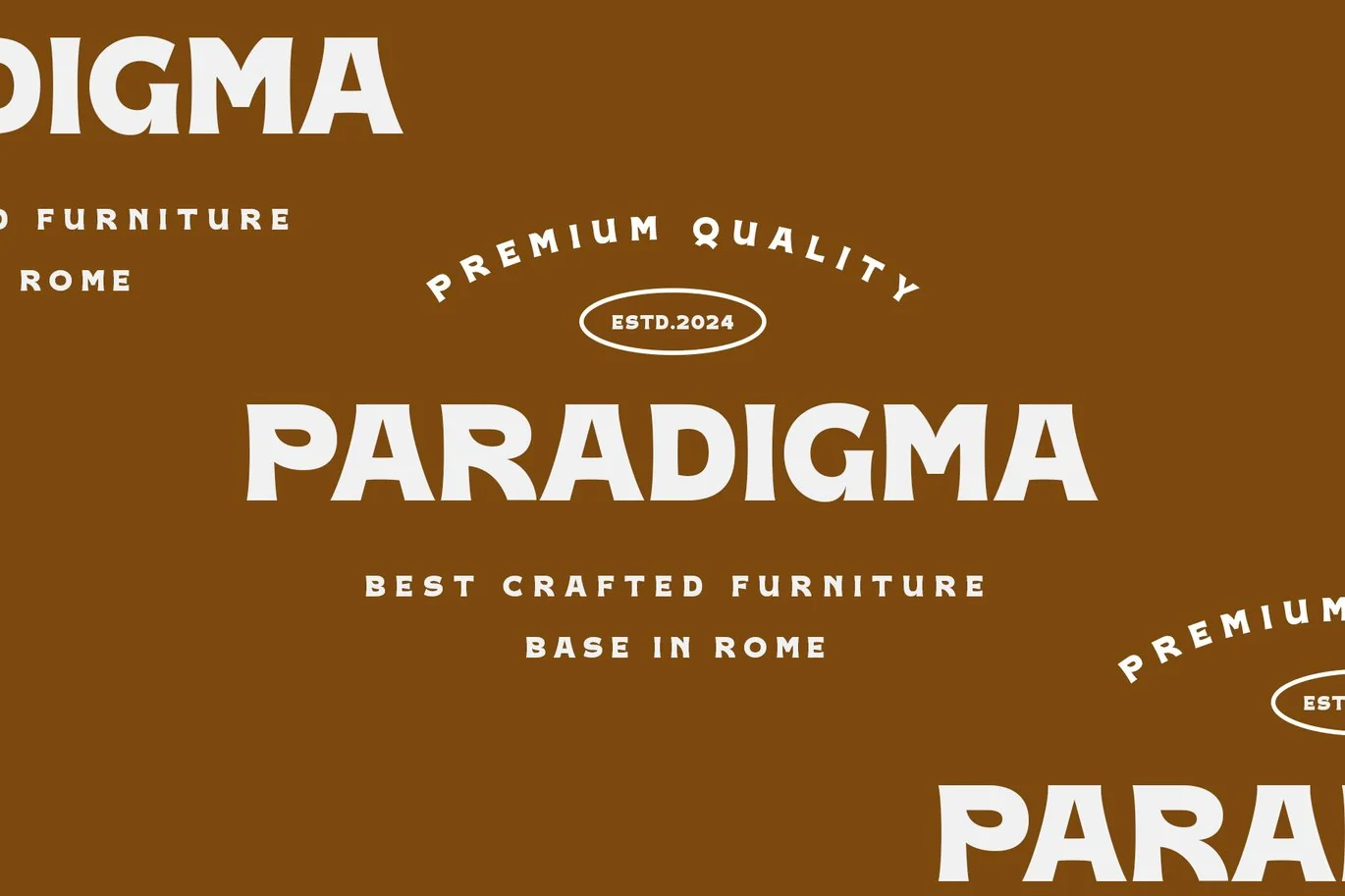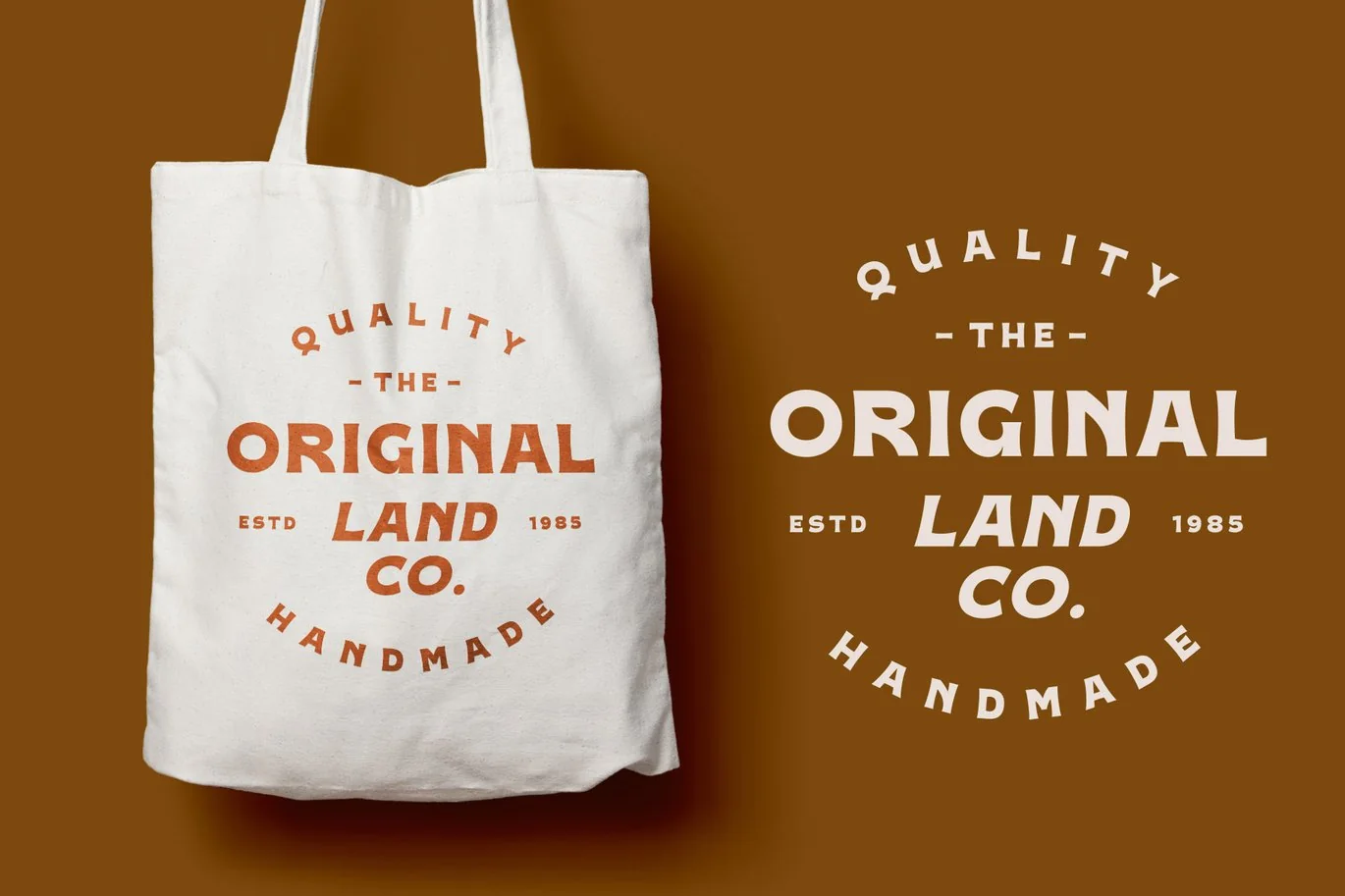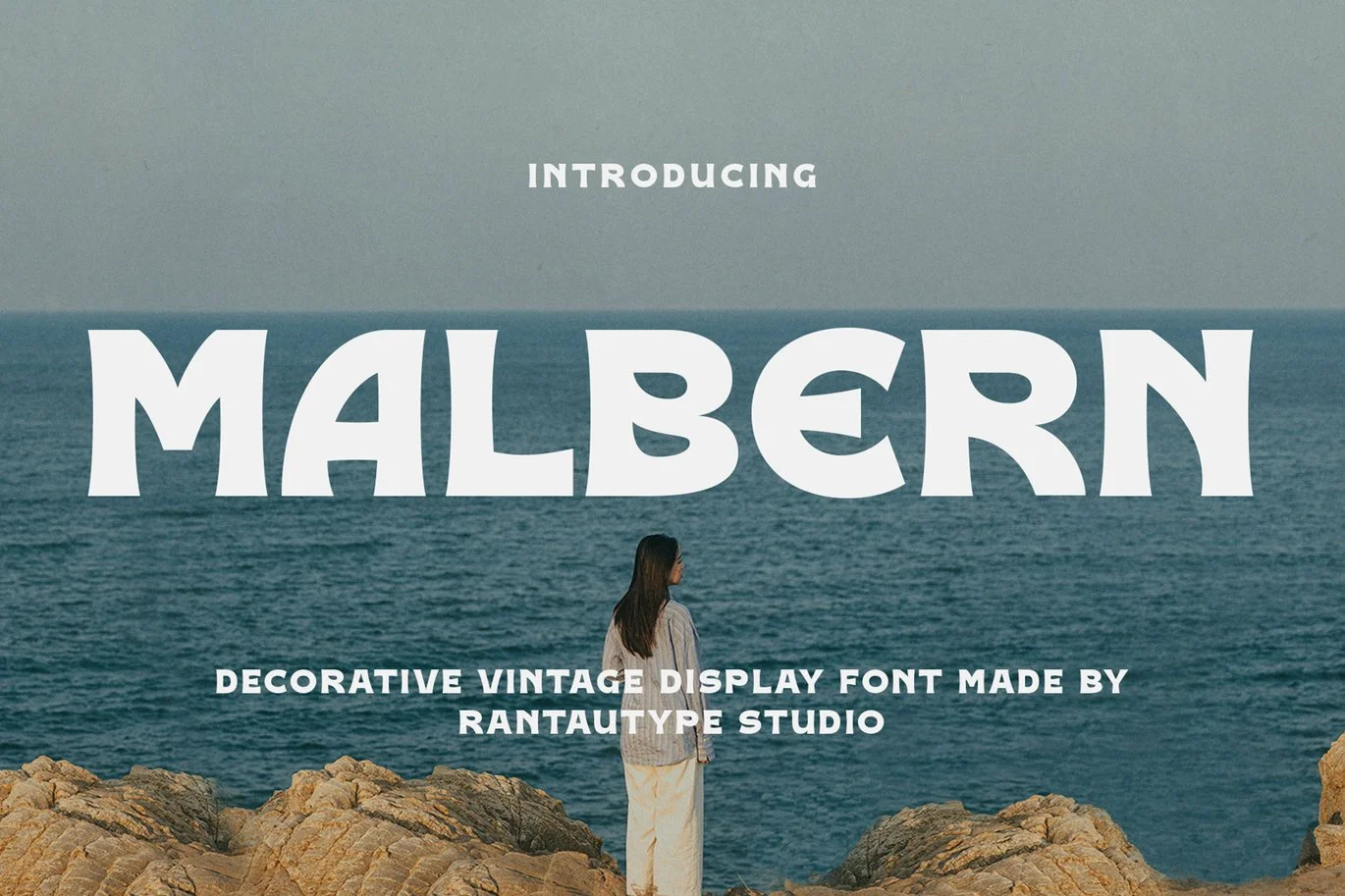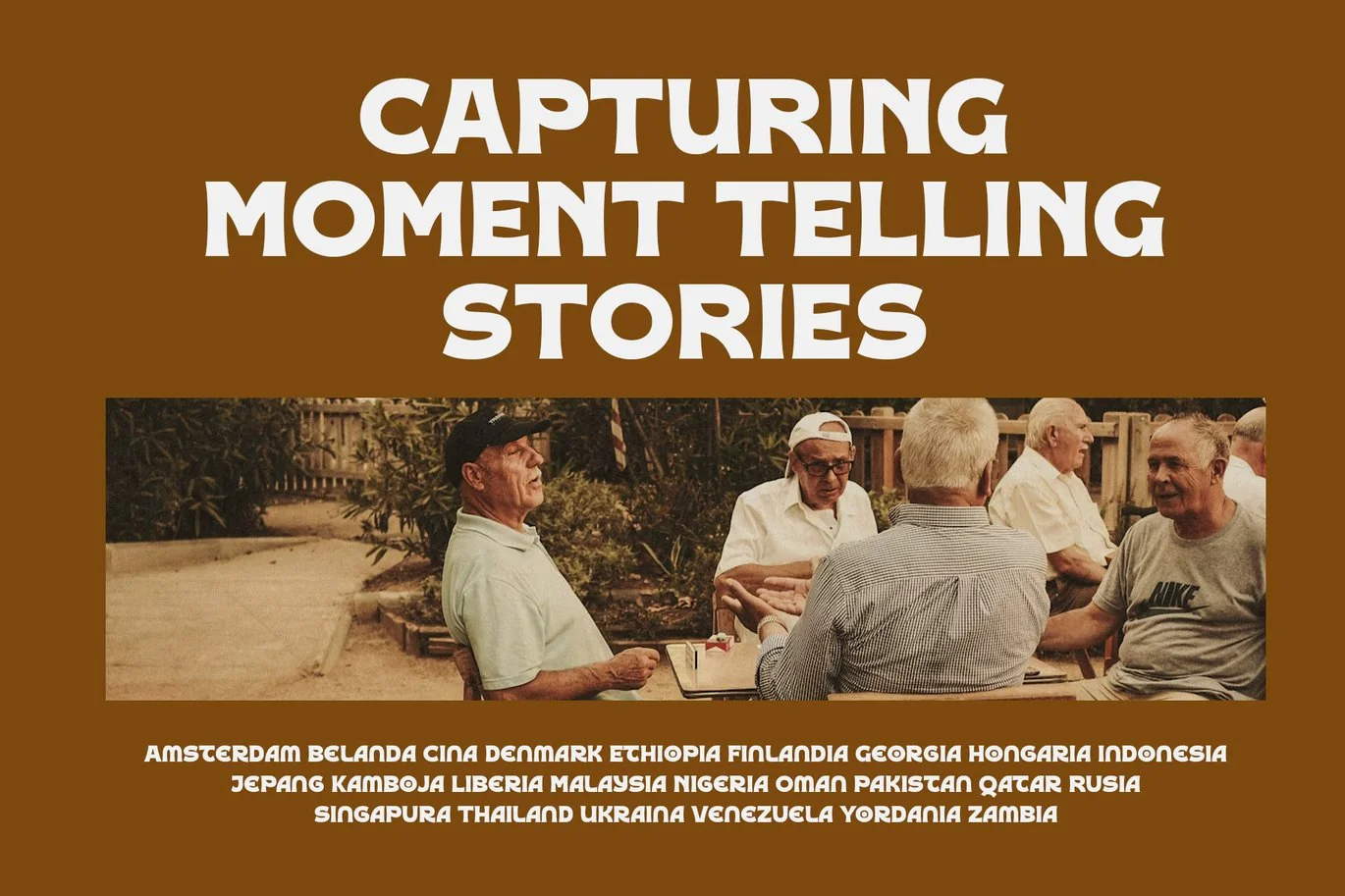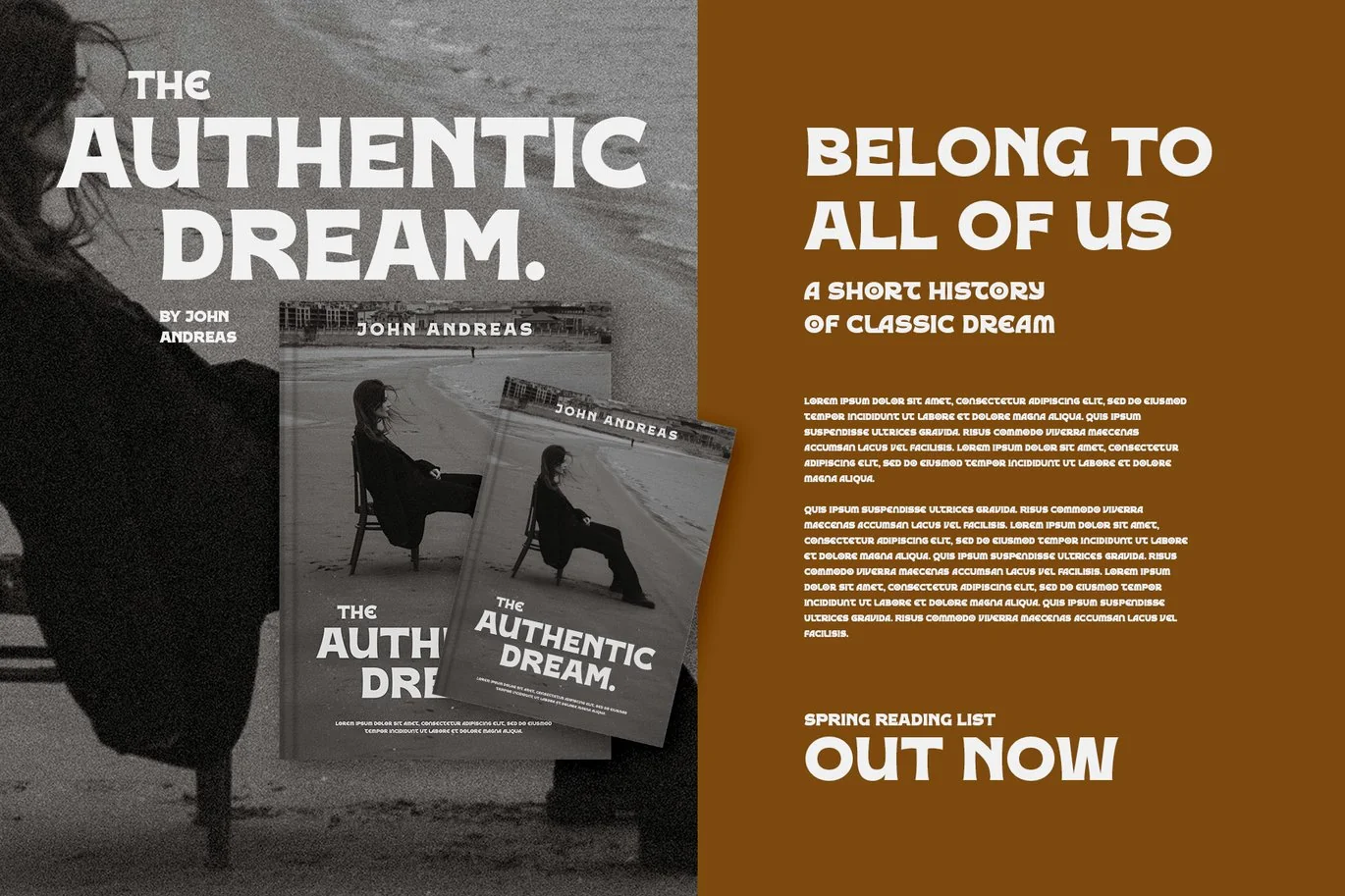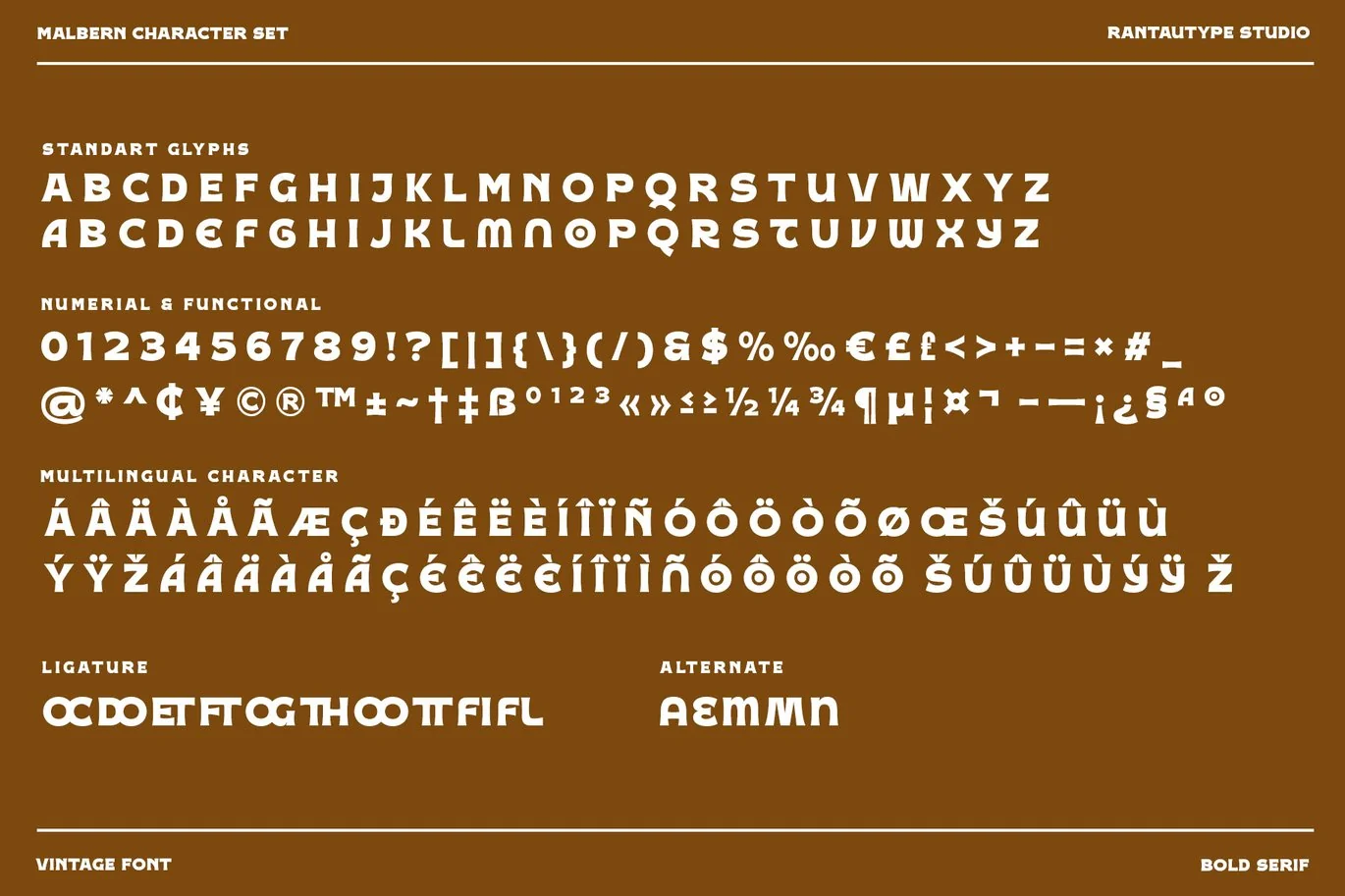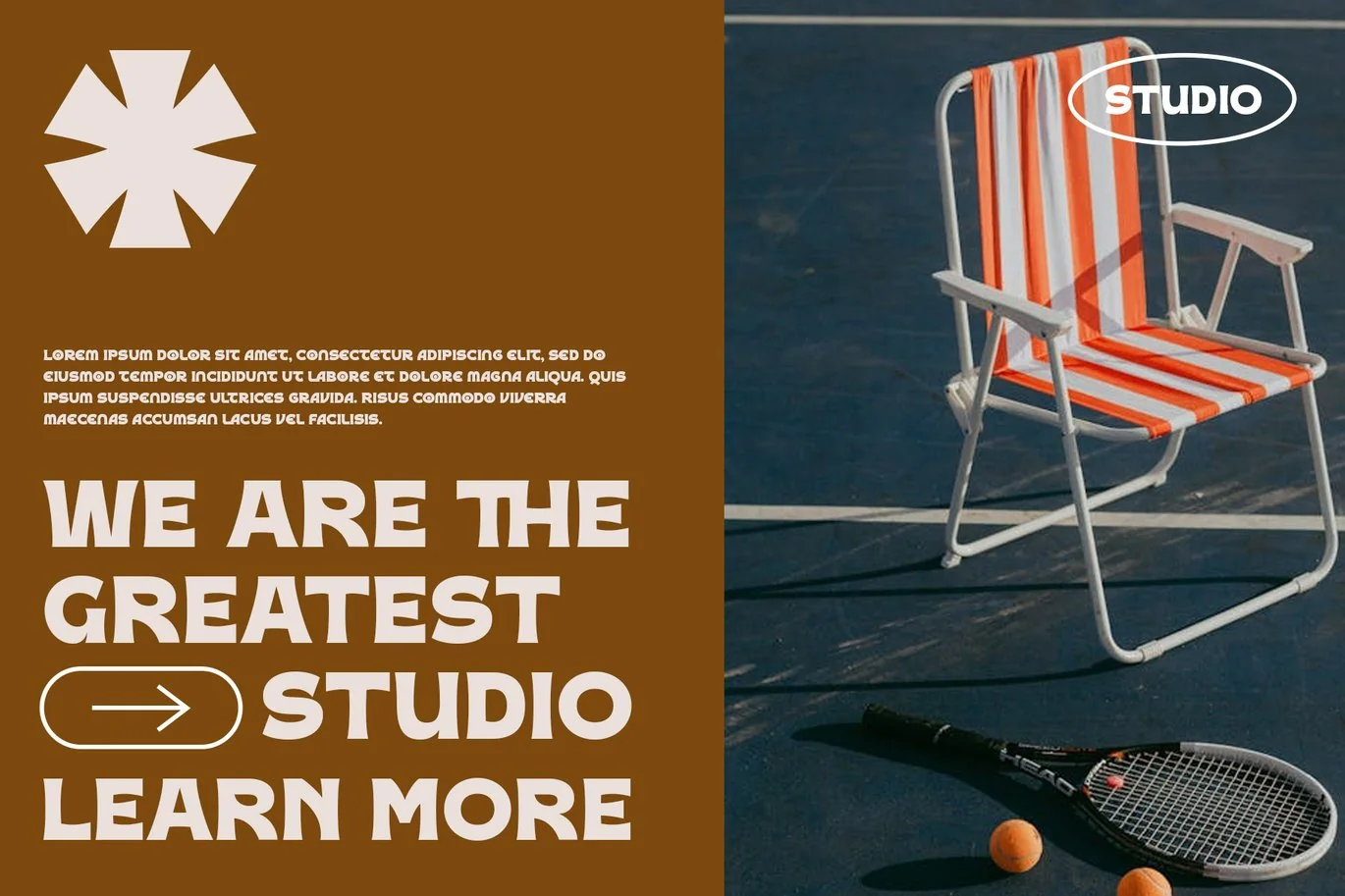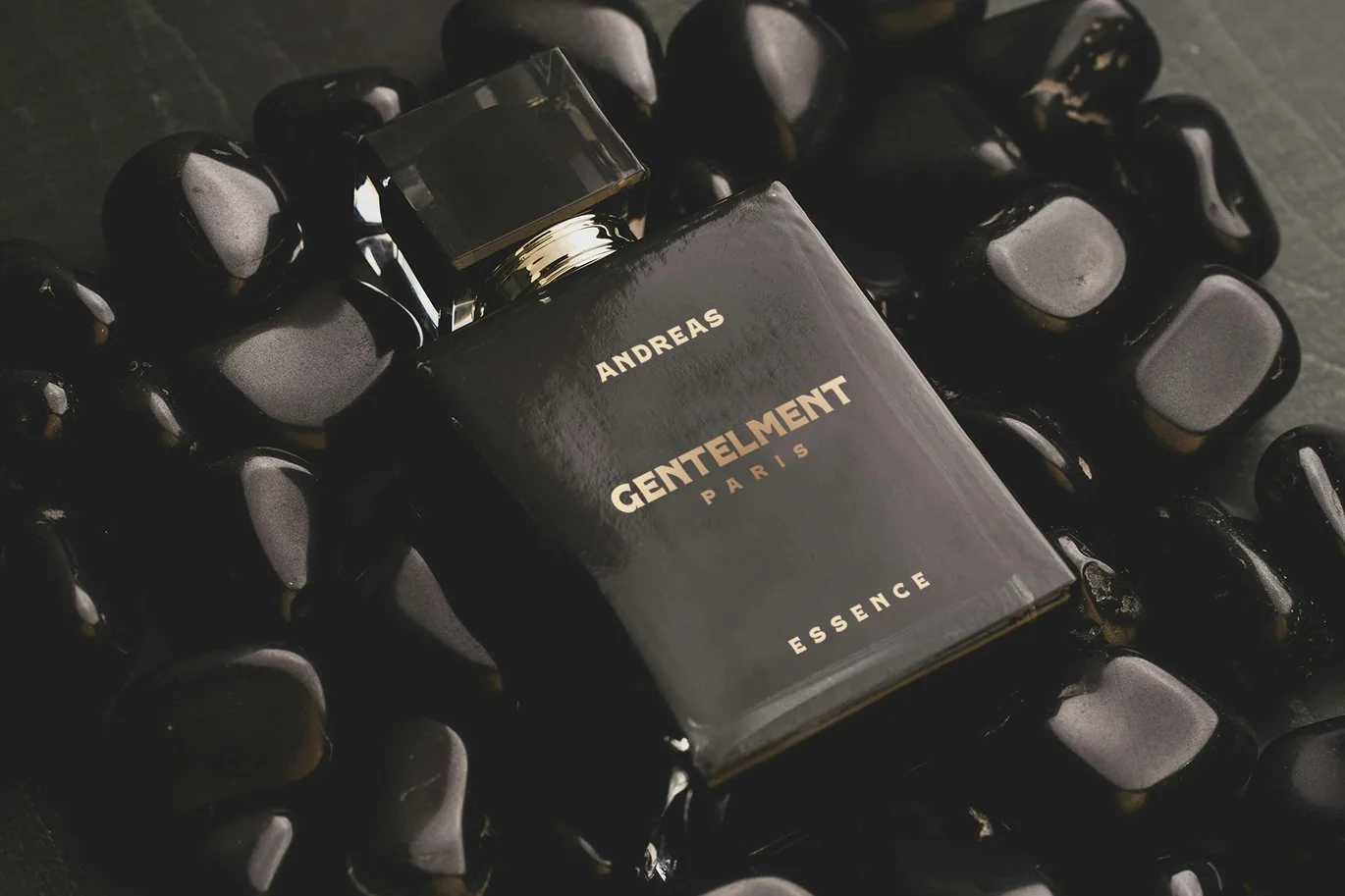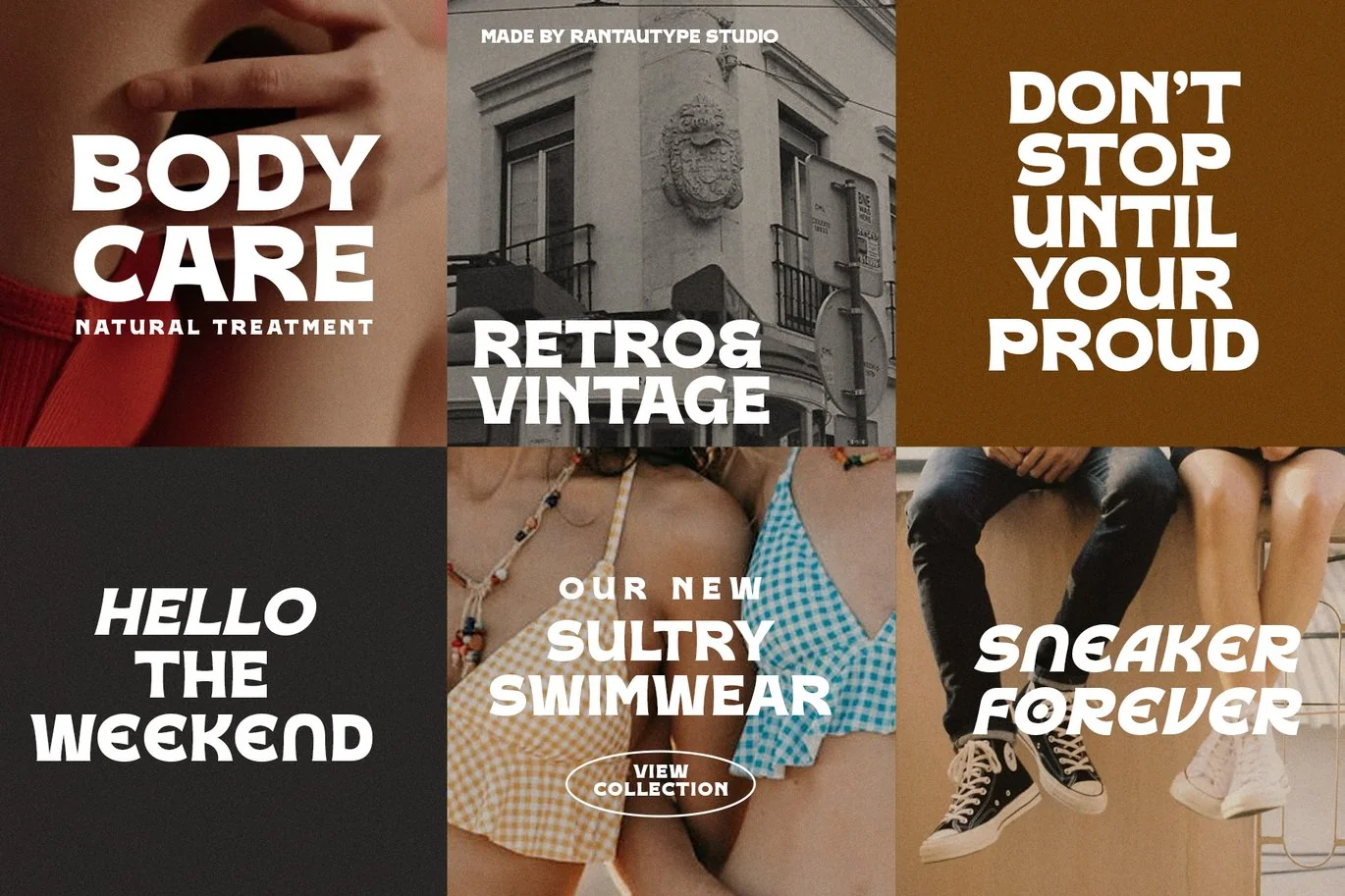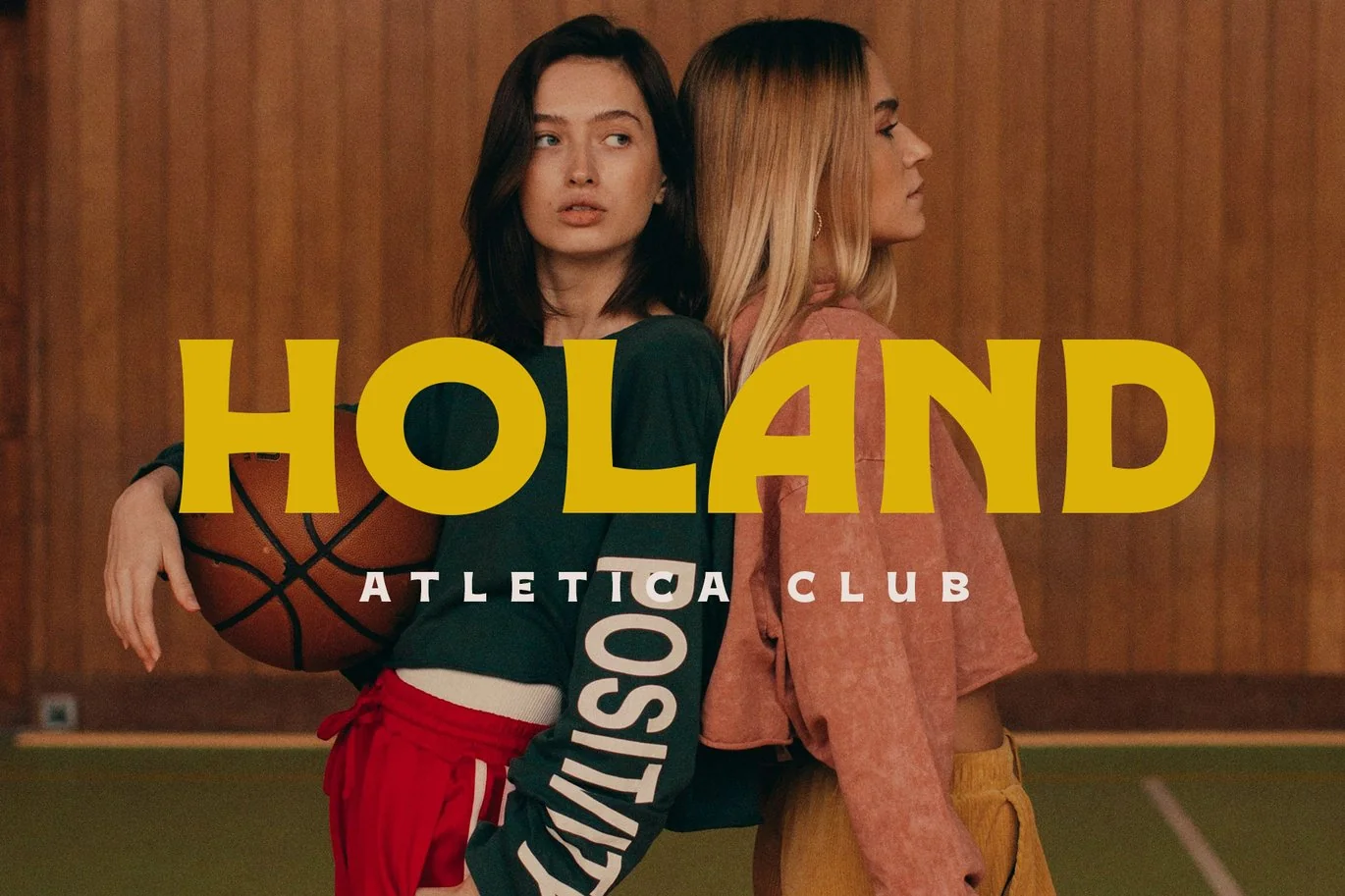
Malbern Vintage Decorative Font
Malbern is vintage bold font inspire by old-fashioned magazine. Malbern bring strong shape with retro style look. Malbern is a perfectly choice for any creative endeavor, chic, lifestyle design such as logos, advertisements, stationery, branding project, display and magazine, invitation, corporate brand, product design, label, business project and many other project with vintage or modern touch.